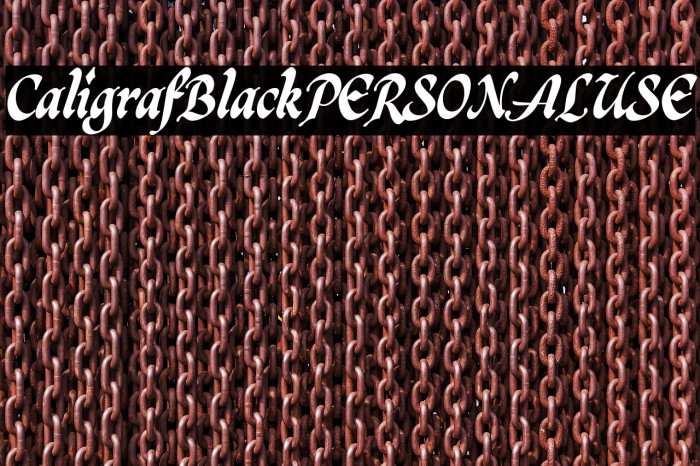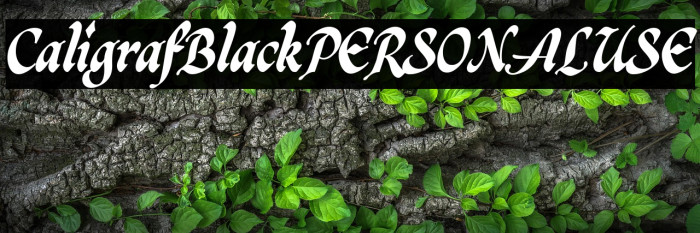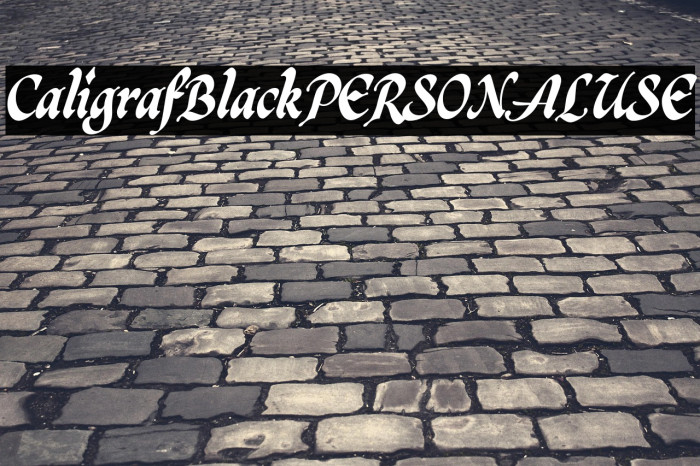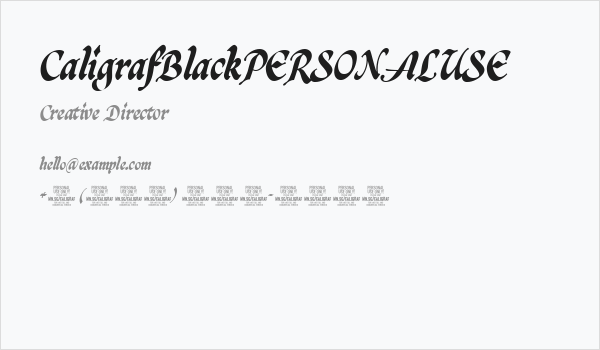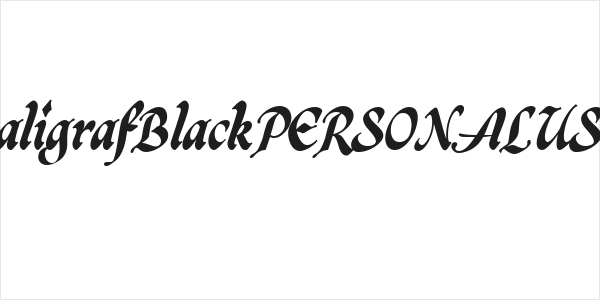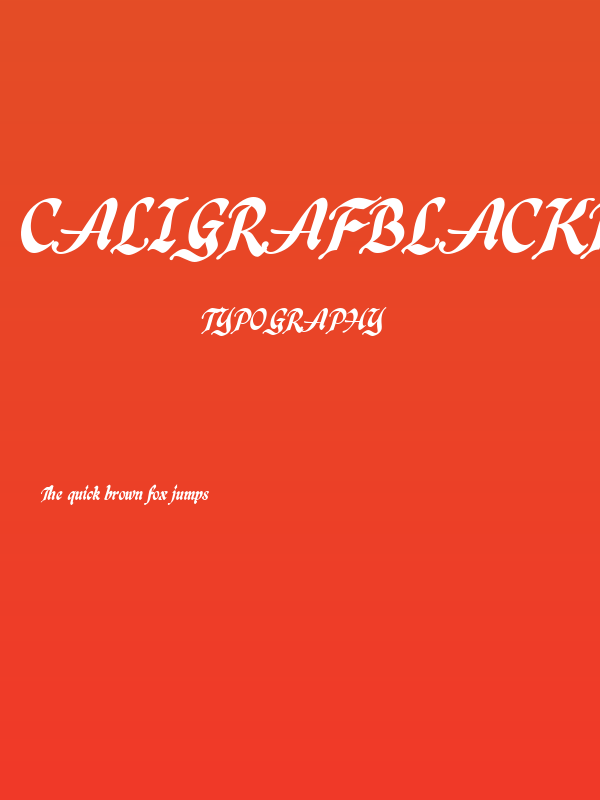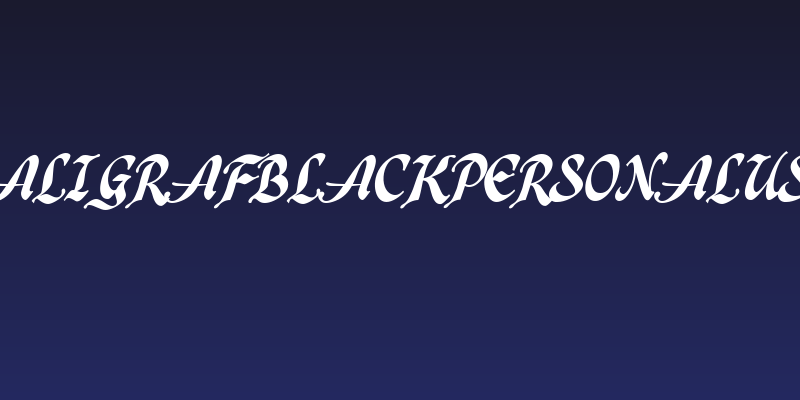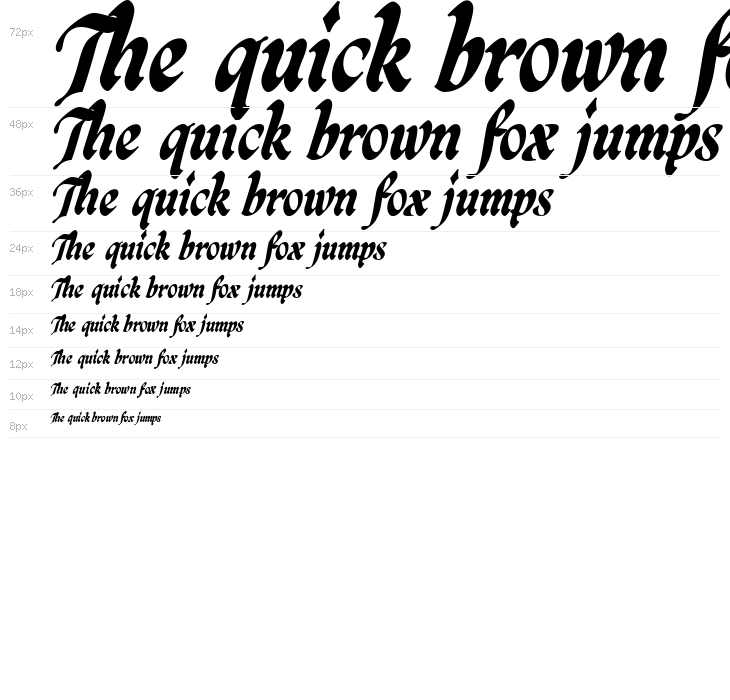
CaligrafBlackPERSONALUSE Font
CaligrafBlackPERSONALUSE Description
This font features a bold, flowing script style with a strong calligraphic influence. The uppercase letters exhibit dramatic flourishes and elegant curves, while the lowercase letters maintain a consistent fluidity, enhancing its handwritten appearance. The characters are closely spaced, creating a cohesive and compact look. The numbers and special characters are designed to match the ornate style, adding a touch of sophistication. This font is ideal for projects that require a touch of elegance and artistic flair.